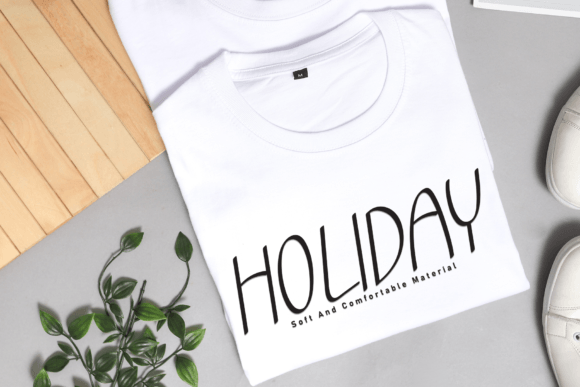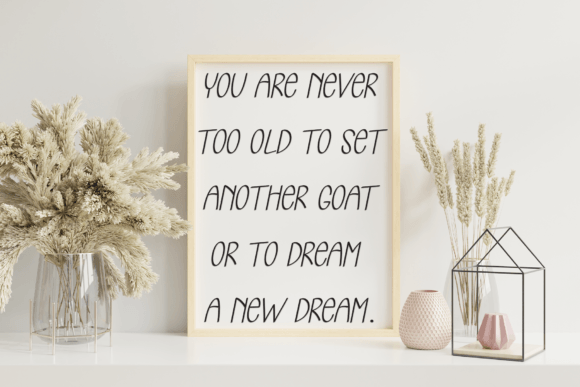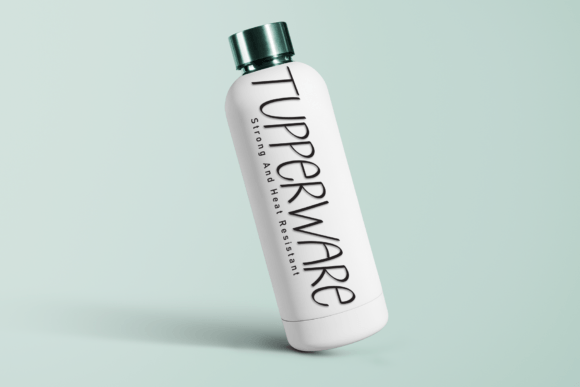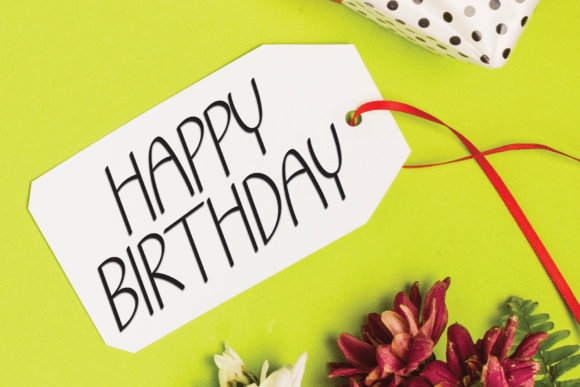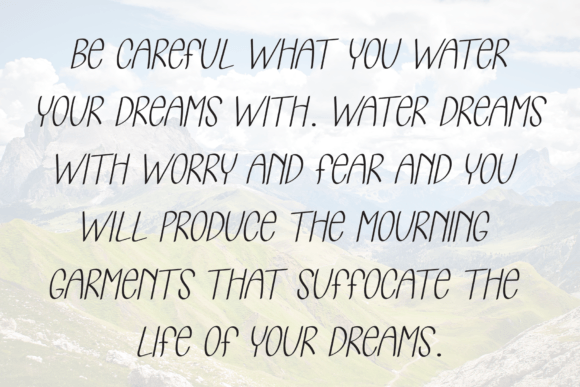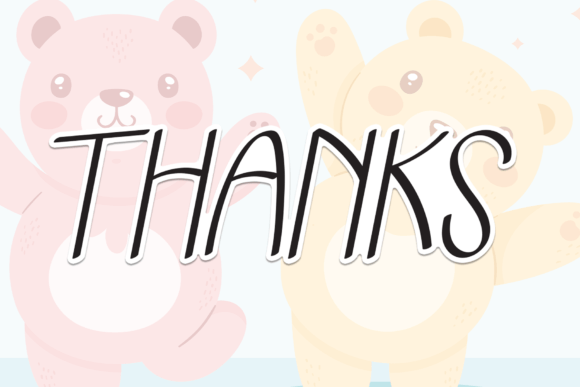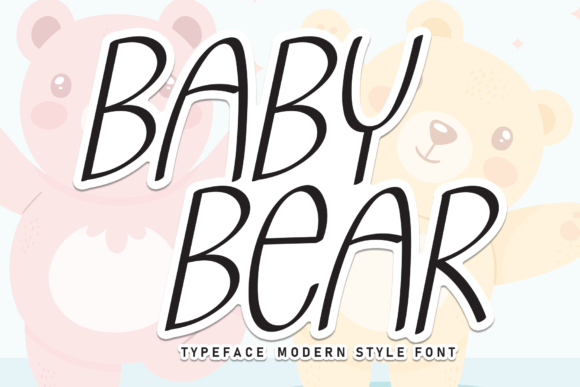
Baby Bear Font: The Sweetest Addition to Your Design Projects
Are you looking for a font that can add a touch of sweetness and friendliness to your design projects? Look no further than the Baby Bear Font! This adorable handwritten display font is perfect for creating fun and playful designs that will capture the hearts of your audience. In this article, we’ll take a closer look at the Baby Bear Font, its features, and how you can use it to elevate your design projects.
What is Baby Bear Font?
Baby Bear Font is a sweet and friendly handwritten display font that is designed to bring a touch of whimsy and fun to your designs. With its cute and playful style, this font is ideal for writing wedding invitations, cards, or any other design that might need a fun touch. Whether you’re a designer, crafter, or DIY enthusiast, Baby Bear Font is a great addition to your font collection.
Key Features of Baby Bear Font
So, what makes Baby Bear Font so special? Here are some of its key features:
- Handwritten style: Baby Bear Font has a beautiful handwritten style that gives it a personal and friendly touch.
- Cute and playful: This font is designed to be fun and playful, making it perfect for designs that need a touch of whimsy.
- Display font: Baby Bear Font is a display font, which means it’s designed to be used at larger sizes, making it perfect for headings and titles.
- Easy to read: Despite its playful style, Baby Bear Font is easy to read, making it perfect for use in a variety of design projects.
Uses for Baby Bear Font
So, how can you use Baby Bear Font in your design projects? Here are some ideas to get you started:
- Wedding invitations: Baby Bear Font is perfect for writing sweet and playful wedding invitations that will set the tone for a fun and romantic wedding.
- Cards and stationery: This font is great for creating fun and playful cards and stationery for special occasions like birthdays, baby showers, and more.
- Signs and posters: Baby Bear Font is also great for creating eye-catching signs and posters for events, sales, and promotions.
- Digital designs: You can also use Baby Bear Font in digital designs like social media graphics, blog posts, and more.
Tips for Using Baby Bear Font
Here are some tips for using Baby Bear Font in your design projects:
- Use it sparingly: Because Baby Bear Font is a display font, it’s best to use it sparingly to add emphasis and interest to your designs.
- Pair it with other fonts: You can pair Baby Bear Font with other fonts to create a unique and interesting contrast.
- Experiment with colors: Baby Bear Font looks great in a variety of colors, so don’t be afraid to experiment and find the perfect color for your design.
In conclusion, Baby Bear Font is a sweet and friendly handwritten display font that is perfect for adding a touch of fun and whimsy to your design projects. With its cute and playful style, this font is ideal for writing wedding invitations, cards, or any other design that might need a fun touch. Whether you’re a designer, crafter, or DIY enthusiast, Baby Bear Font is a great addition to your font collection.